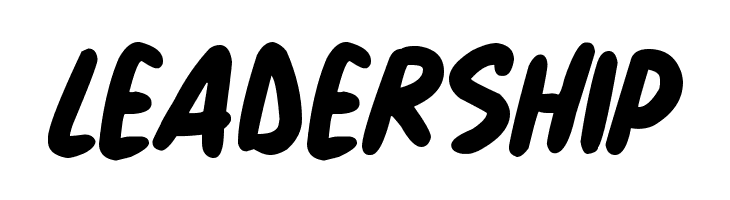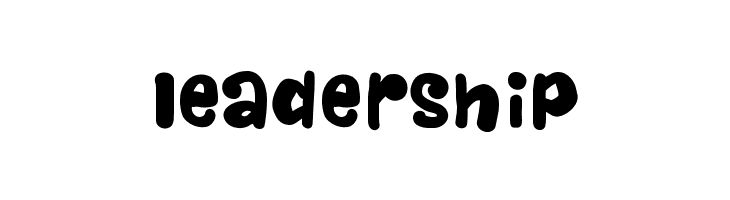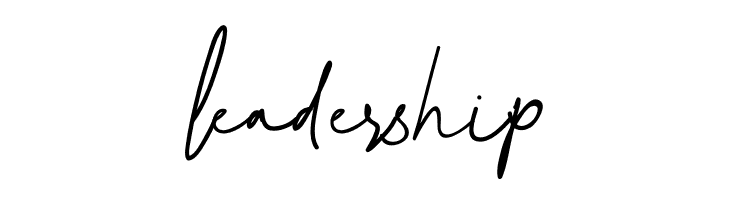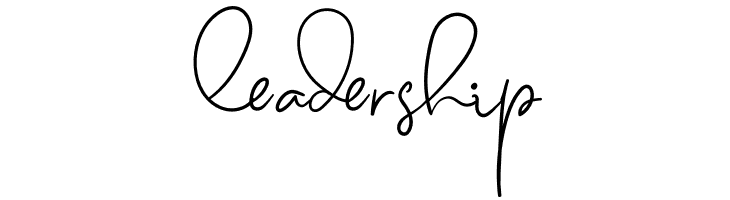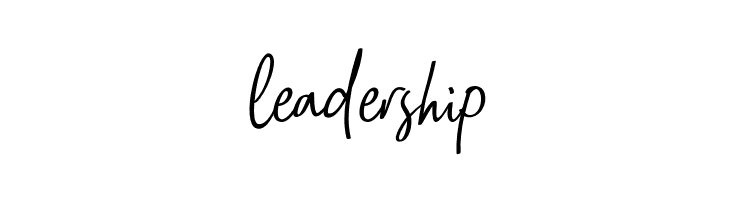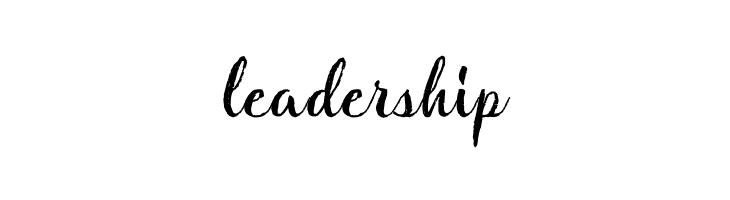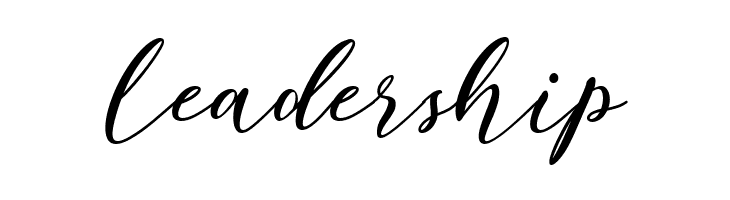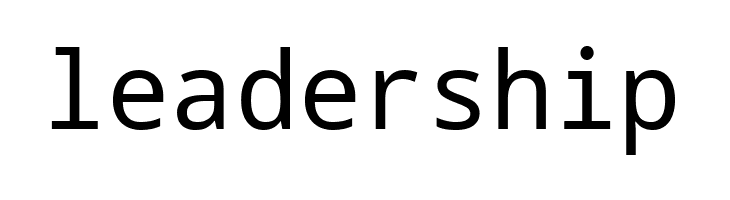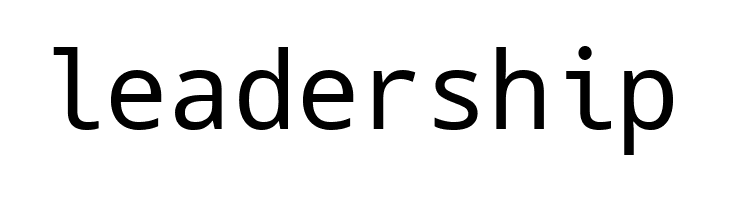
A playful, bold, and cartoonish font with thick outlines and a hand-drawn style.
A playful, bold font with a hand-drawn, dotted texture and thick outlines.
A novelty font made up of illustrated portraits instead of traditional letters or numbers.
A bold, playful font with rounded strokes and a friendly appearance.
A bold, hand-painted style font with textured edges and a dynamic appearance.
A flowing, cursive script font with elegant, connected characters.
A fluid, cursive font that mimics elegant handwriting.
An elegant, flowing script font with a cursive, handwritten style.
A pixelated, blocky font with a retro digital aesthetic.
A bold, playful font with a whimsical and cartoonish style.
A bold, cursive script font with dynamic and flowing characters.
An elegant, high-contrast script font with flowing, decorative curves.
A playful, hand-drawn font with bold, irregular strokes and a dynamic appearance.
A bold, dynamic script font with high contrast and a strong right slant.
A playful, handwritten font with a whimsical and casual style.
A playful, handwritten font with tall, narrow letters and consistent stroke width.
A playful, handwritten font with a casual and approachable style.
A playful, handwritten font with smooth, rounded strokes and a casual vibe.
A playful, handwritten font with tall, narrow characters and a whimsical style.
A bold, handwritten font with a playful, brush-like texture.
A bold, expressive handwritten font with dynamic brush-like strokes.
A quirky, hand-drawn font with a playful and whimsical style.
A playful, handwritten font with tall, narrow letters and a casual vibe.
A tall, narrow font with a playful, whimsical style.
A dynamic, handwritten font with playful and energetic strokes.
A dynamic, expressive handwritten font with fluid strokes and playful character.
A pixelated, tech-inspired font with a modern digital aesthetic.
A bold, geometric font with strong, angular lines and a modern industrial feel.
A whimsical and decorative font featuring a peanut character in various poses.